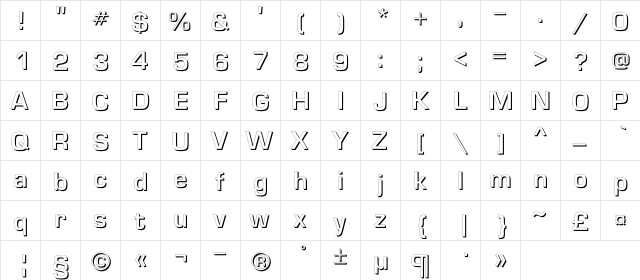
EuropeDemiShadow Regular
Design Context for EuropeDemiShadow Typeface
EuropeDemiShadow brings ornamental detail and strong personality to headlines and identities, where visual impact matters more than quiet functionality.
Font Pairing: Pair with a clean neutral sans-serif for body copy to let EuropeDemiShadow's character lead without overwhelming the composition.
Pro Tip: Treat EuropeDemiShadow as the centrepiece of your typographic hierarchy. One strong heading set in a decorative face can carry an entire layout.